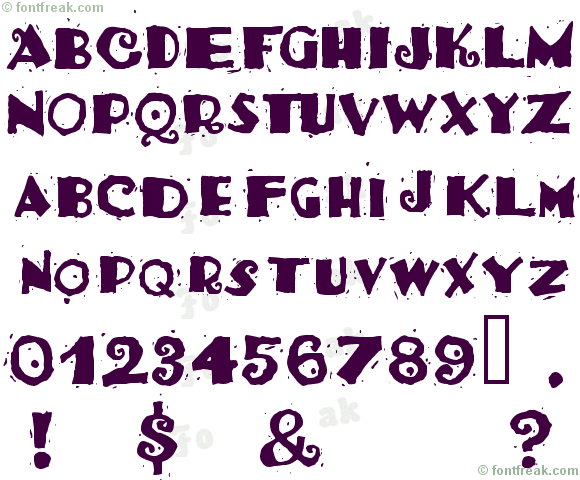
Taco Salad
About Taco Salad
Taco Salad by B. Haber is a distinctive display font that captures attention with its playful and quirky design. This freeware font, created in 1994, features a unique blend of bold, handmade characteristics that set it apart from traditional typefaces. The visual style leans towards a decorative category, showcasing an irregular stroke weight that adds a fun, artistic flair. Its uneven edges and playful spacing evoke a sense of whimsy, making it an excellent choice for projects that aim to convey a light-hearted or casual vibe.
The Taco Salad font is particularly well-suited for a variety of creative applications. It shines in restaurant menus, where its playful nature can enhance the dining experience by reflecting a fun culinary theme. Additionally, this font is ideal for event posters, especially those promoting food festivals or community gatherings. Graphic designers will find it useful for branding projects, creating a memorable logo for a food truck or casual eatery. It’s also a great choice for children’s party invitations or playful social media graphics, providing a cheerful touch that resonates with a younger audience.
The target audience for the Taco Salad font includes graphic designers, small business owners in the food industry, and content creators looking to inject personality into their work. Its unique design appeals to those seeking to stand out in a crowded market while maintaining a sense of fun.
What makes the Taco Salad font stand out is its blend of originality and versatility. Its free download availability allows anyone to easily incorporate this distinctive typeface into their projects, fostering creativity without the constraints of licensing fees. Whether you’re designing a menu or crafting an eye-catching poster, the Taco Salad font brings a unique charm that leaves a lasting impression.